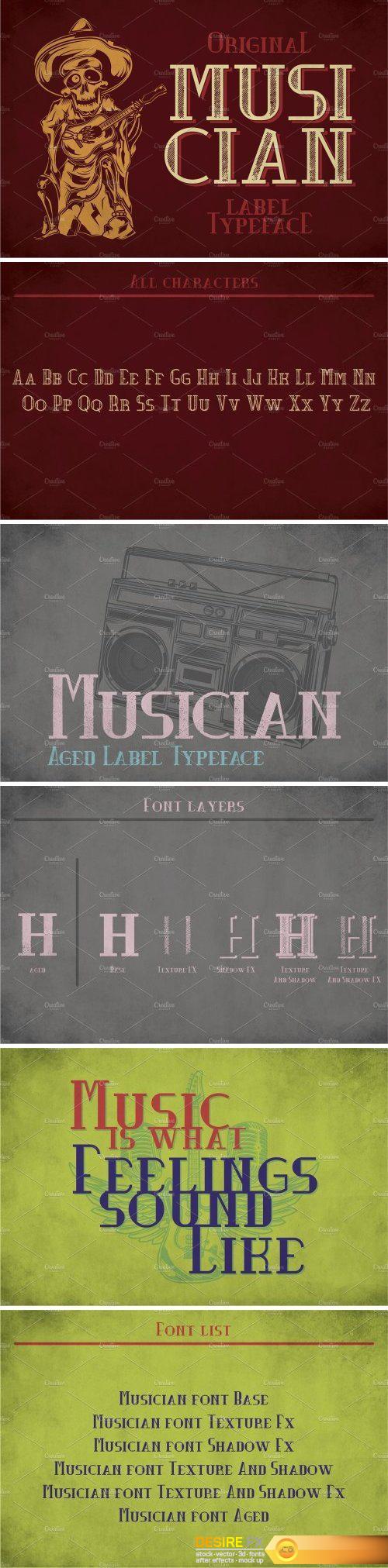
CM – Musician Modern Label Typeface 2091540
Introducing a original label typeface named “Musician”. It’s made in fresh and modern label style. Typeface is good viewed on any labels design.